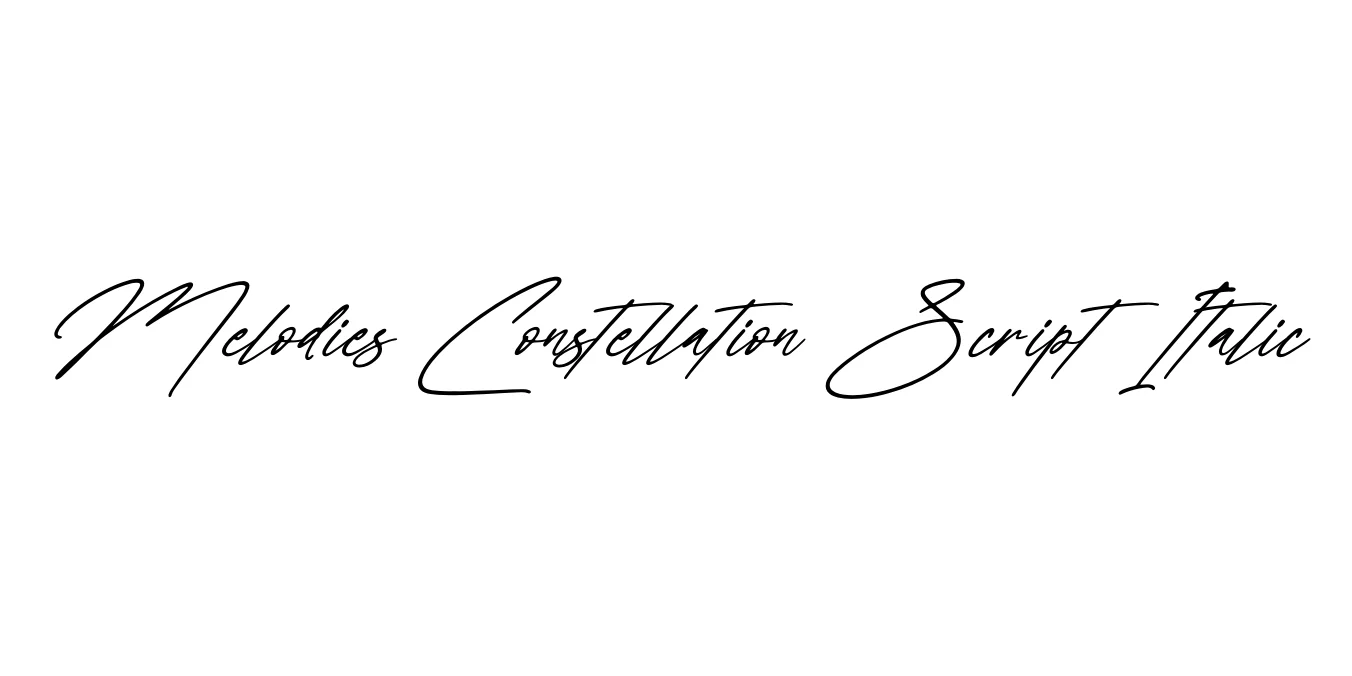
Melodies Constellation Script Italic
Designed by Vunira
Melodies Constellation Script Italic is a sophisticated and fluid typeface designed to capture the ethereal beauty of a star-filled sky. Characterized by its rhythmic strokes and elegant ligatures, this font offers a seamless blend of traditional calligraphy and modern digital precision. The italic slant adds a sense of motion and grace, making it an ideal choice for projects that require a touch of romance and high-end sophistication.
This typeface is particularly effective in luxury branding and editorial design. With its wide range of decorative swashes and alternate characters, Melodies Constellation allows designers to create truly unique typographic compositions. Whether used for grand wedding stationery or delicate logo marks, the font maintains its legibility while providing a distinct, hand-drawn aesthetic that resonates with premium audiences.
Melodies Constellation Script Italic Best Uses
Creating elegant and romantic headers for high-end stationery.
Developing sophisticated logos for luxury fashion or beauty brands.
Designing aesthetic quote graphics and stylish post layouts.